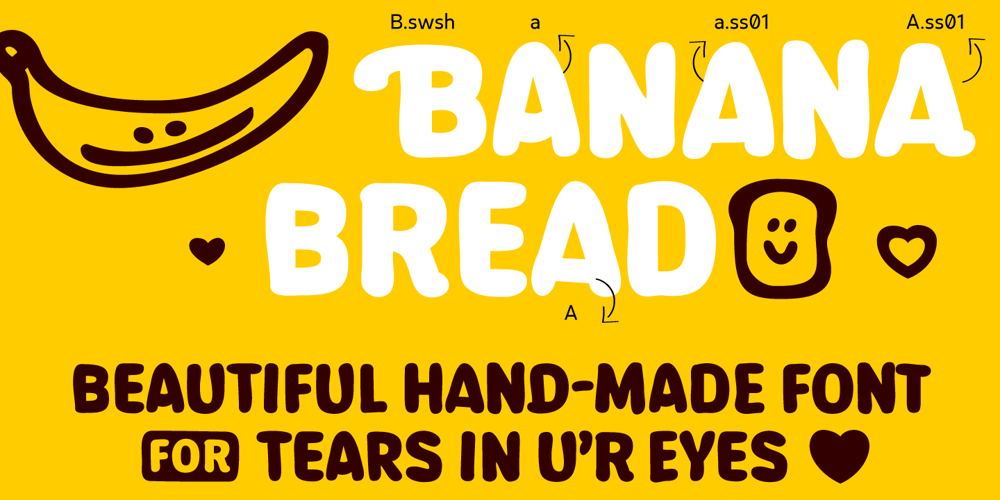
Banana Bread Font
Banana Bread Font Font Family was designed by Manuel Viergutz and published by TypoGraphicDesign. Banana Bread Font contains 10 styles and family package options. The variable Sans Serif typeface Banana Bread is designed from 2024 for the font foundry Typo Graphic Design by Manuel Viergutz.9 font-styles (Thin, Extra Light, Light, Regular, Medium, SemiBold, Bold, Ultra Black, Heavy) with 628+ glyphs (Adobe Latin 3) incl. decorative extras like icons, arrows, catch words, dingbats, emojis, symbols, geometric shapes (type the word #LOVE for ❤ or #SMILE for ☺ as OpenType-Feature dlig) and stylistic alternates (2 stylistic sets).For use in logos, packaging for drinks & food, magazines, posters, advertisement plus as webfont for decorative headlines. The font works best for display size.Have fun with this font & use the DEMO-FONT (with reduced glyph-set) FOR FREE!Juicy, doughy, sloppy, organic like a beautiful sliceDeliciously sweet-smelling banana bread mampf yummy Font Spe­ci­fi­ca­ti­ons■ Font Name: Banana Bread■ Font Styles: 9 font-styles (Thin, Extra Light, Light, Regular, Medium, SemiBold, Bold, Ultra Black, Heavy)+ DEMO (with reduced glyph-set)■ Font Cate­gory: Variable Sans Serif for head­line size■ Font For­mat: _OTF (for Print (Mac + PC) + _WOFF (for Web)■ Glyph Set: 628 glyphs (Adobe Latin 3 incl. decorative extras)■ Lan­guage Sup­port (91 languages): Afrikaans Albanian Asu Basque Bemba Bena Breton Catalan Chiga Colognian Cornish Croatian Czech Danish Dutch Embu English Esperanto Estonian Faroese Filipino Finnish French Friulian Galician German Gusii Hungarian Icelandic Indonesian Irish Italian Kabuverdianu Kalenjin Kamba Kikuyu Kinyarwanda Latvian Lithuanian Lower Sorbian Luo Luxembourgish Luyia Machame Makhuwa-Meetto Makonde Malagasy Maltese Manx Meru Morisyen North Ndebele Norwegian Bokmål Norwegian Nynorsk Nyankole Oromo Polish Portuguese Quechua Romanian Romansh Rombo Rundi Rwa Samburu Sango Sangu Scottish Gaelic Sena Serbian Shambala Shona Slovak Slovenian Soga Somali Spanish Swahili Swedish Swiss German Taita Teso Turkish Upper Sorbian Uzbek (Latin) Volapük Vunjo Walser Welsh Western Frisian Zulu■ OpenType features (20): aalt calt case ccmp dlig dnom frac liga lnum locl numr onum ordn ss01 ss02 sups swsh kern mark mkmk■ Specials: Capital Letter Sharp S (German Versal Eszett U+1E9E) ẞ, Catchwords like FOR, Emojis like Smiley ☺ ☻, Symbols like Heart ♥︎, Variable Sans Serif Font■ Design Date: 2024■ Type Desi­gner: Manuel Viergutz